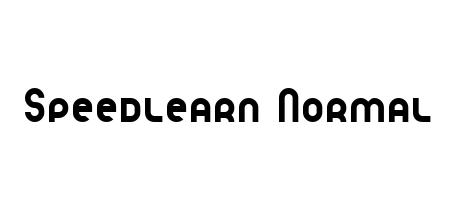
Speedlearn
By SDFonts
Speedlearn Normal: A bold, sans-serif typeface exudes a modern, almost robotic feel. Its rounded terminals soften the geometric shapes, creating a slight contrast between the clean lines and organic curves. The weight is heavy, commanding attention without being aggressive. The overall style is clean, efficient, and confident.